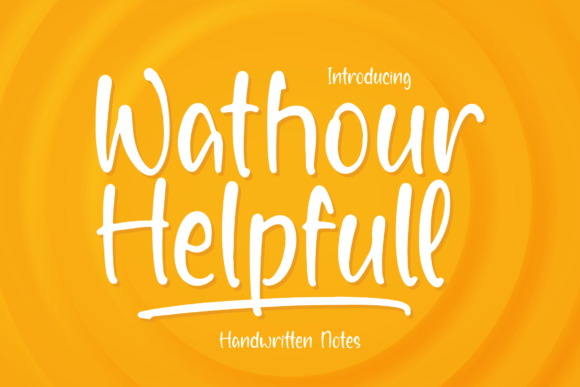
Introducing Wathour Helpfull, a captivating script font that exudes elegance and charm. Its handwritten strokes infuse your designs with a touch of genuine personality, making it the perfect choice for fashion blogs and lifestyle brands seeking to create a lasting impression.
Step into a world of creativity where your words dance with grace and flair. Wathour Helpfull's enchanting curves and playful ligatures add a touch of magic to your designs, transforming them from ordinary to extraordinary. Experience the joy of seamless storytelling as your readers are captivated by the beauty of your words, effortlessly flowing across the page like a gentle caress.
Unleash your inner artist and embrace the versatility of Wathour Helpfull. Its carefully crafted characters, ranging from delicate hairlines to bold flourishes, provide endless possibilities for expression. Craft logos that command attention, branding that resonates with your audience, and social media posts that ignite engagement. Let your imagination soar as you witness the transformative power of Wathour Helpfull, turning your creative visions into stunning realities.
With Wathour Helpfull, you'll discover a font that's not just a collection of letters, but an extension of your creativity. Its timeless aesthetics transcend trends, ensuring your designs remain relevant and captivating for years to come. Join the ranks of creative professionals who have embraced Wathour Helpfull to elevate their designs and captivate their audiences.
Immerse yourself in the world of Wathour Helpfull and unleash the boundless potential of your imagination. Let your words take center stage, adorned with a font that celebrates their beauty and amplifies their impact. Experience the joy of creating designs that resonate with your audience, leaving a lasting impression that lingers long after the page is turned.